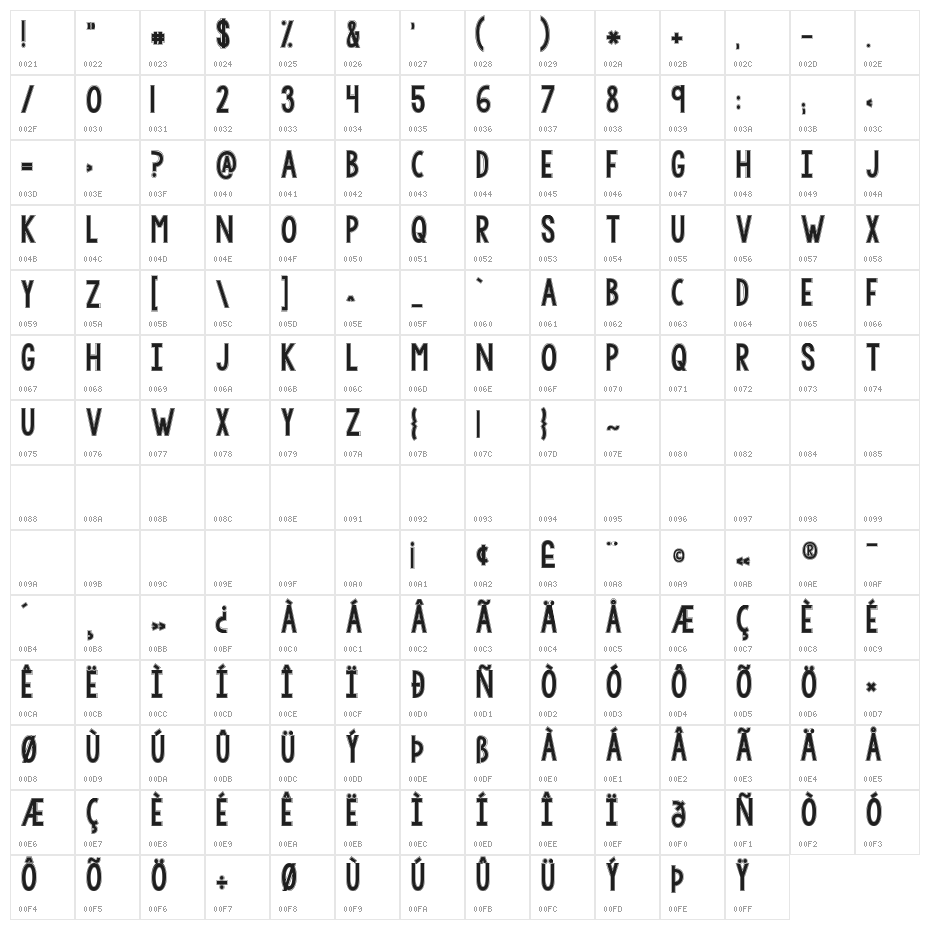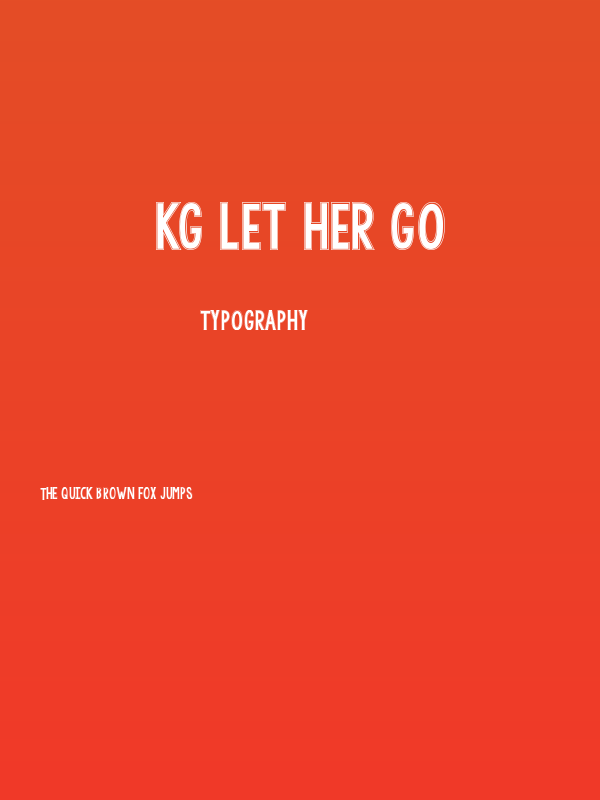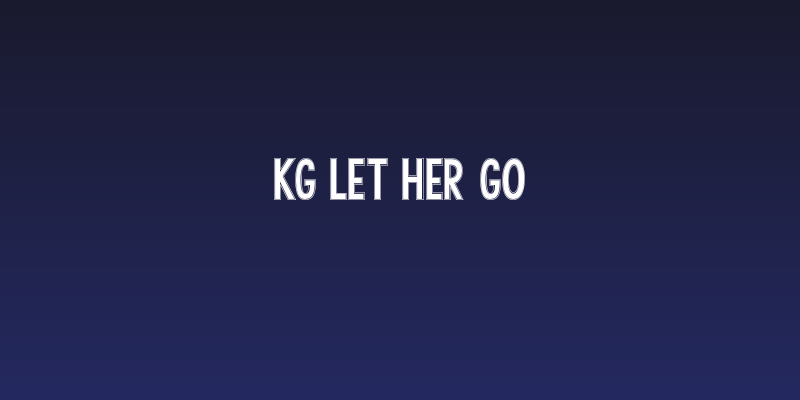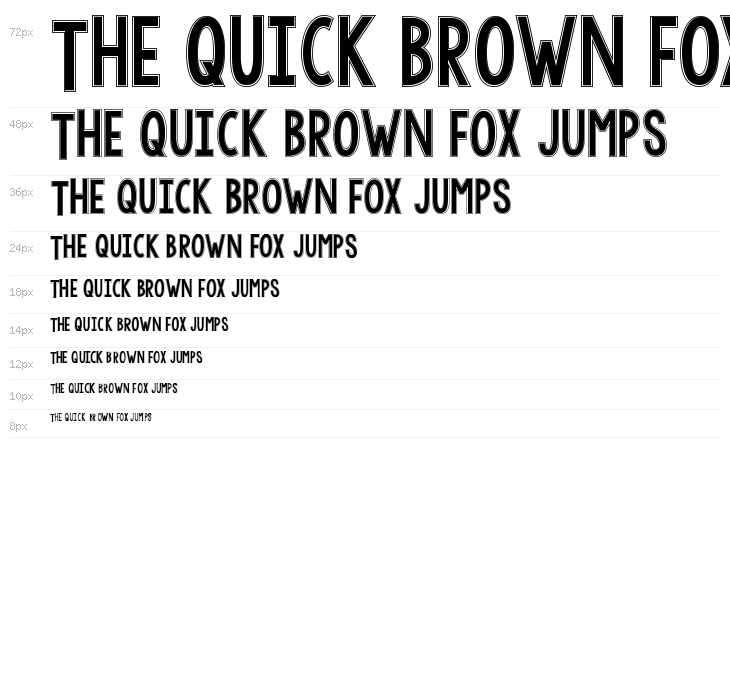
KG LET HER GO Font
KG LET HER GO Description
This font features a bold, geometric sans-serif style with a distinctive outline that gives it a modern and eye-catching appearance. The characters are uniformly structured with clean lines and a slight emphasis on verticality, contributing to a strong and assertive visual impact. The uppercase and lowercase letters maintain consistent proportions, ensuring readability and balance. The numerals and special characters are designed to complement the alphabet, offering a cohesive look across all glyphs. This font's outlined nature adds a layer of depth, making it suitable for designs that require a standout typographic element.
| Proposed Projects | Ideal for headlines, posters, branding, and any design that requires a bold statement. |